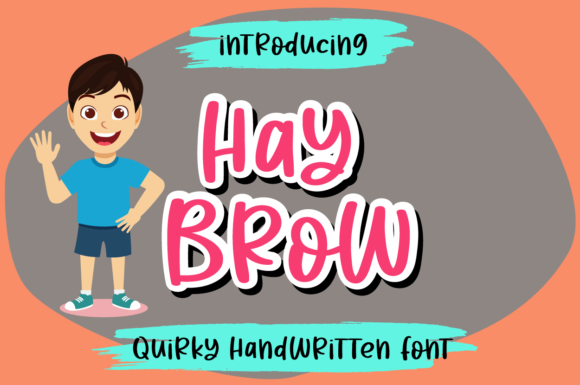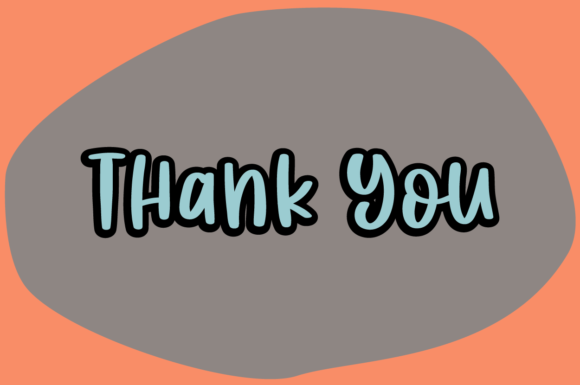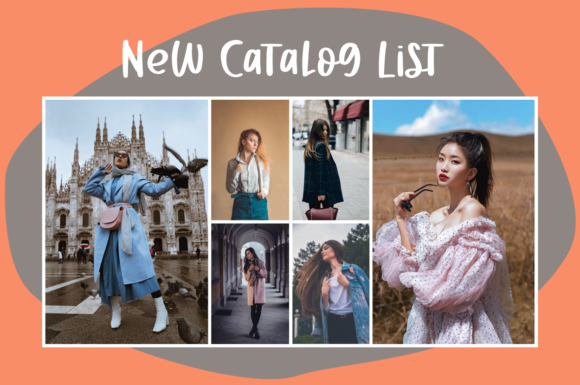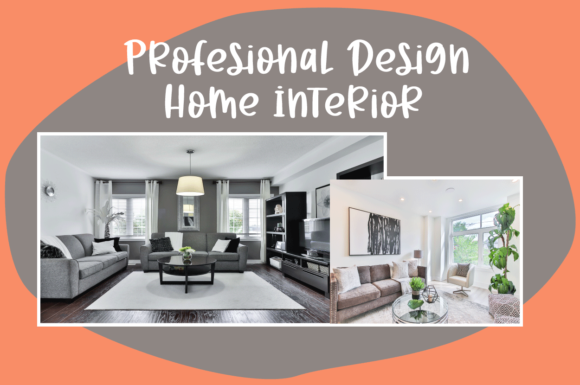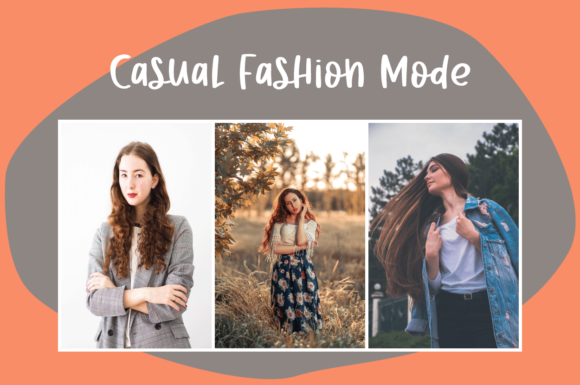
Hay Brow Font
About Hay Brow Font
Hay Brow is a cute, friendly and quirky handwritten font. This original look will appeal to a wide range of crafty ideas, from letterheads and titles, to stationery.